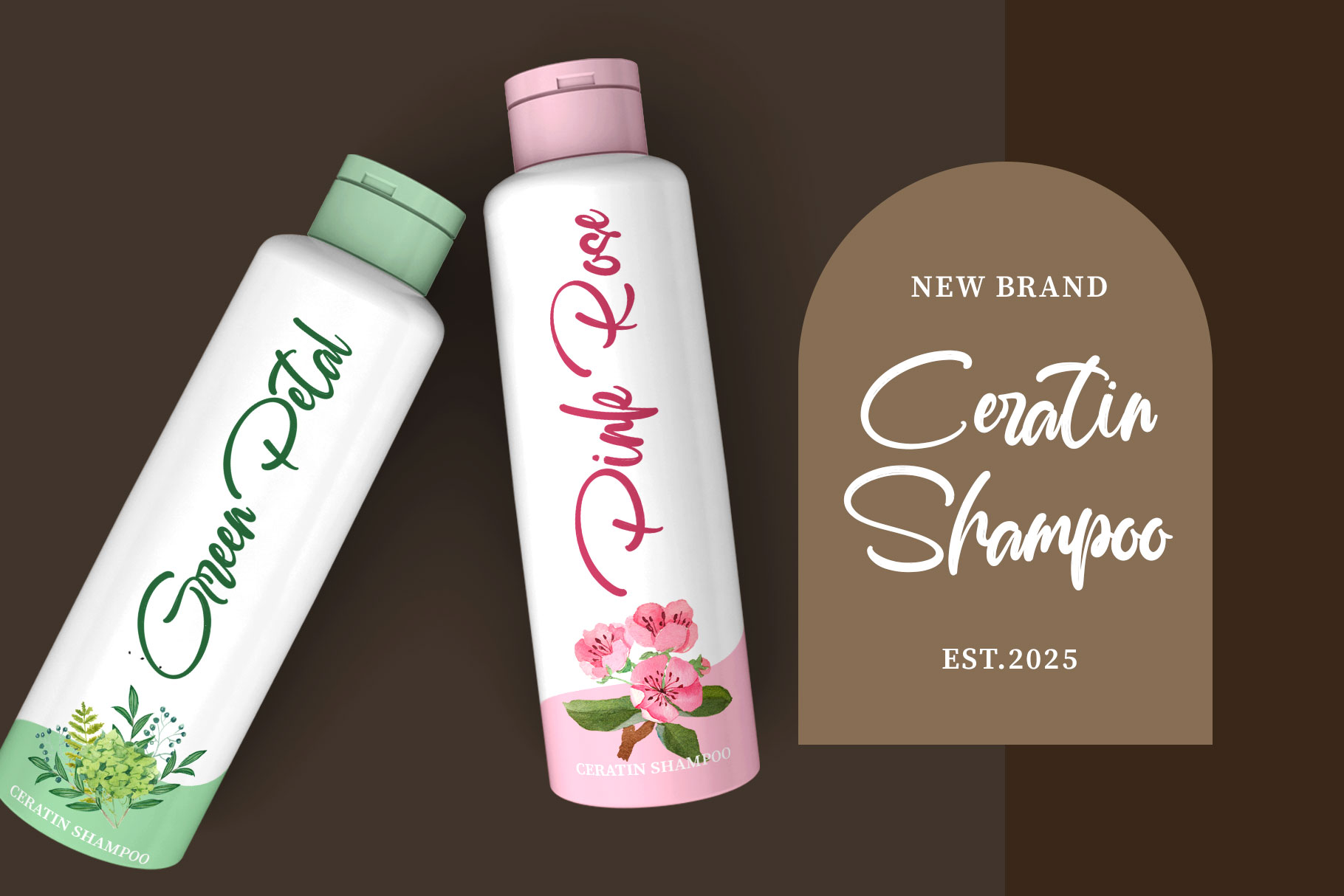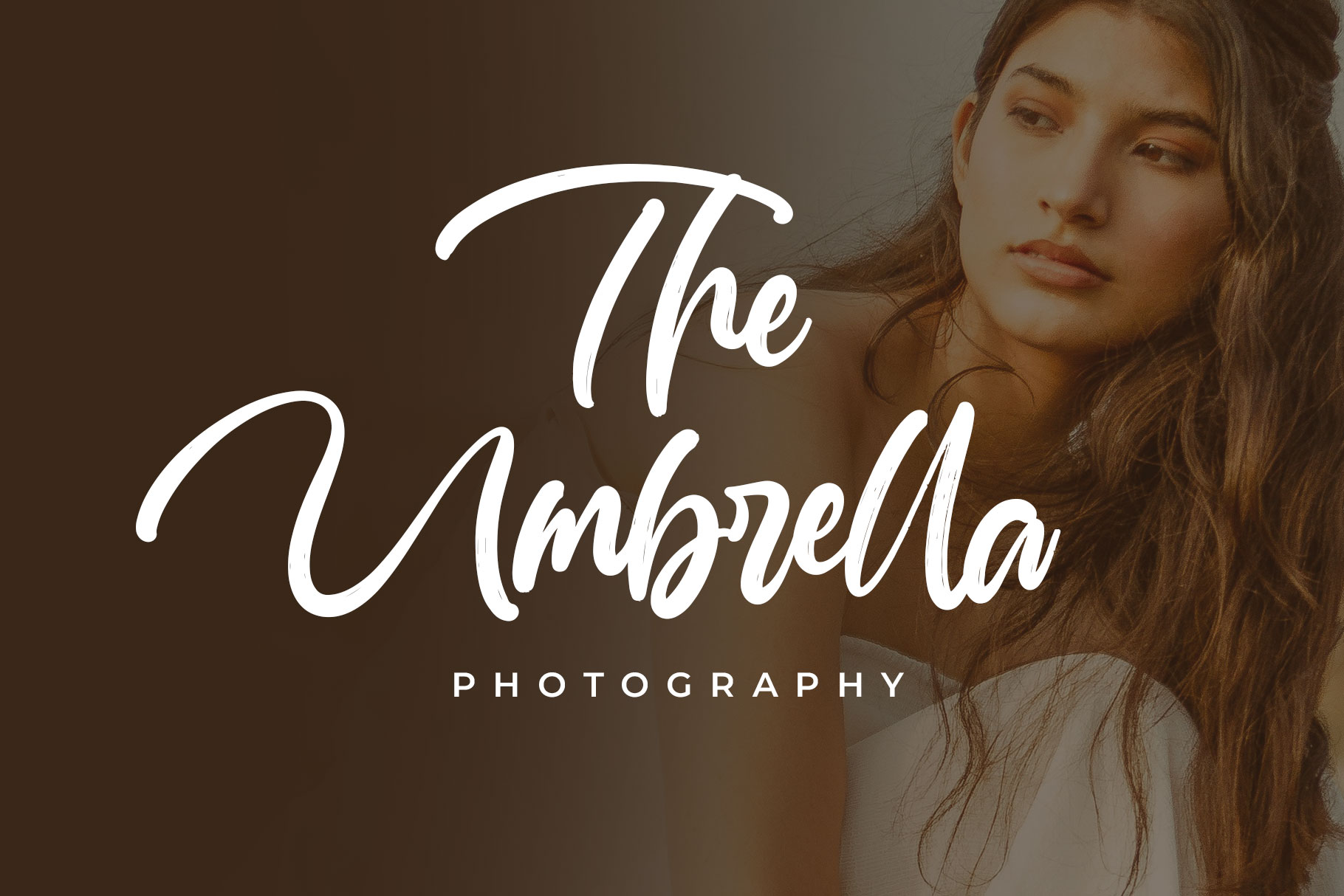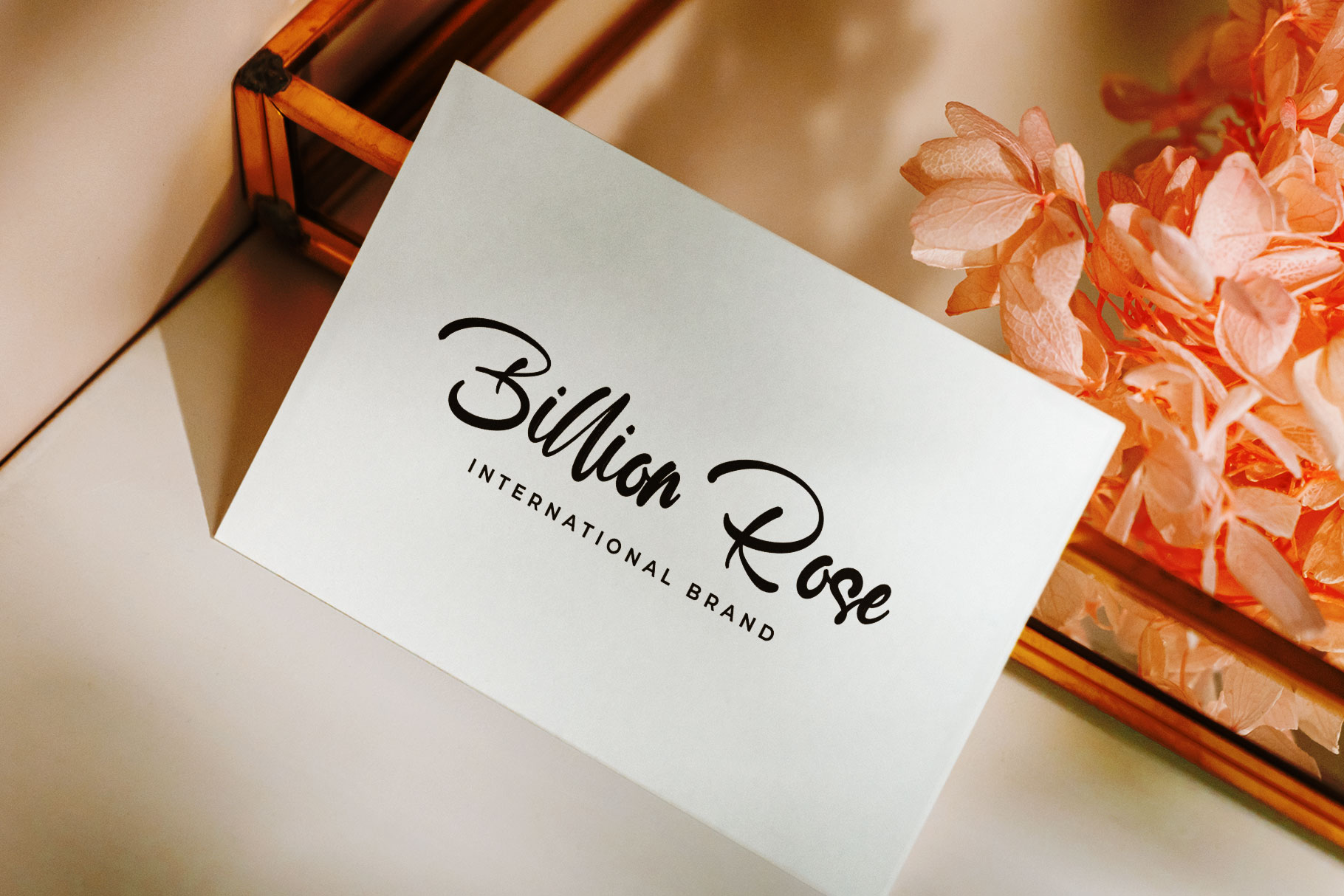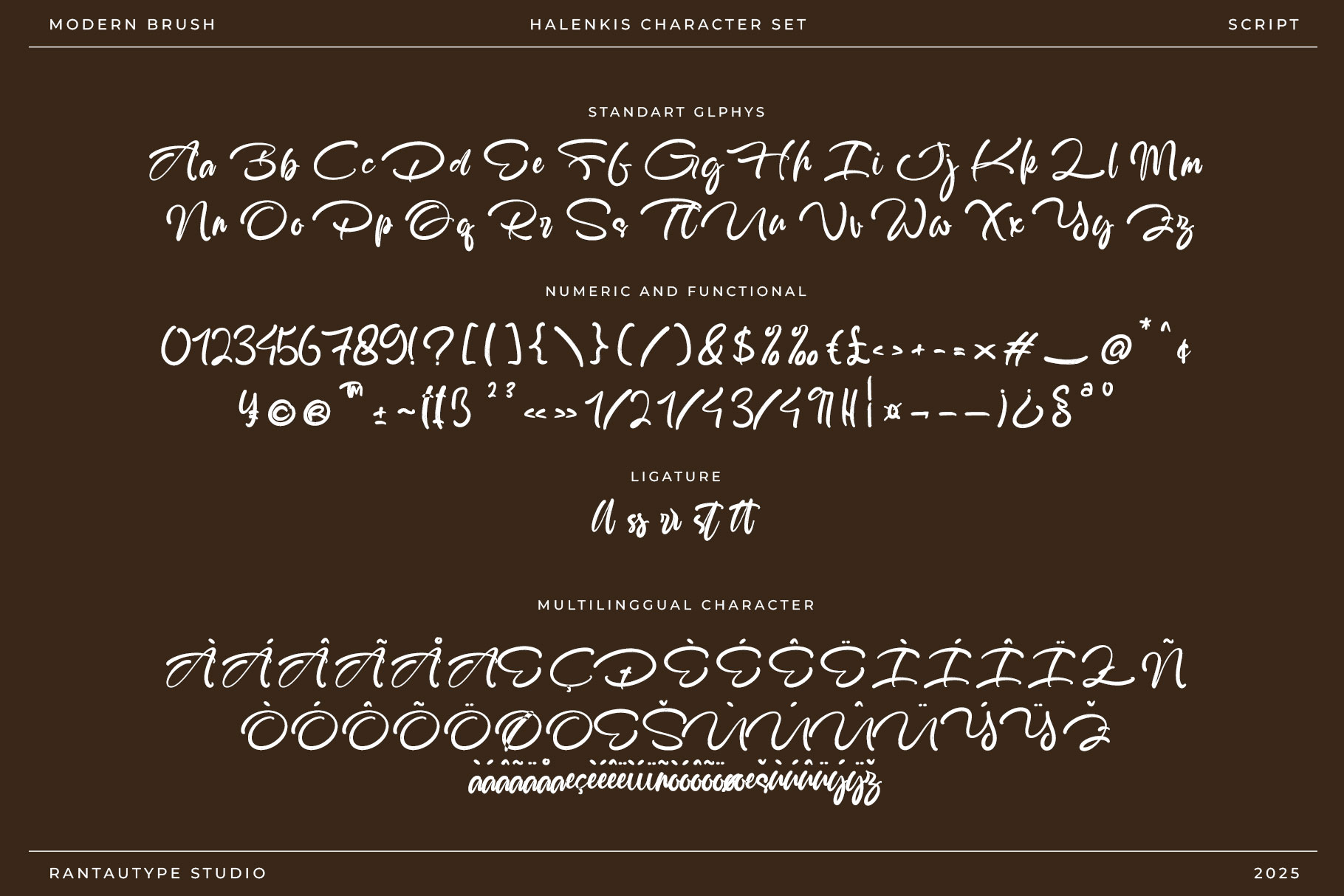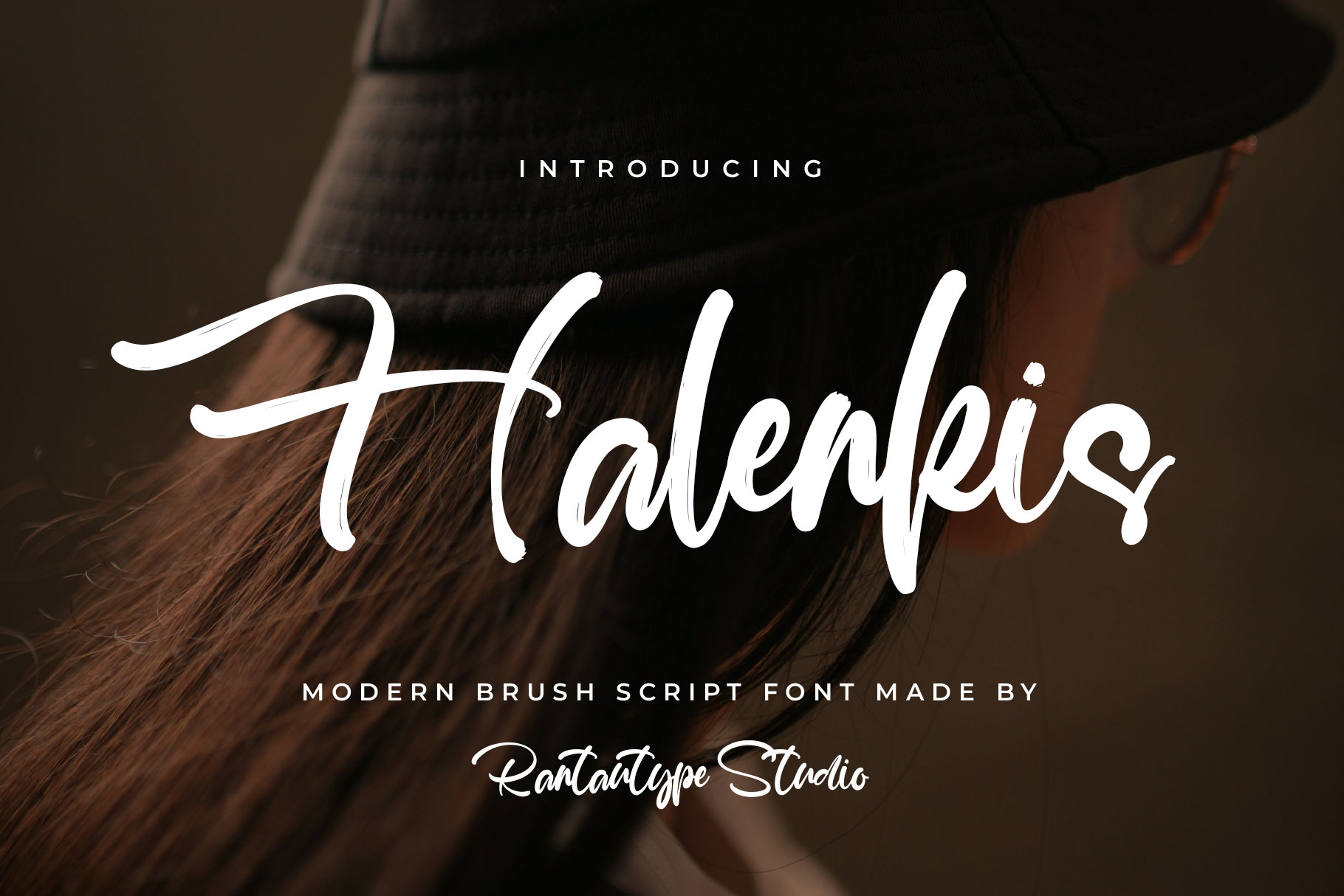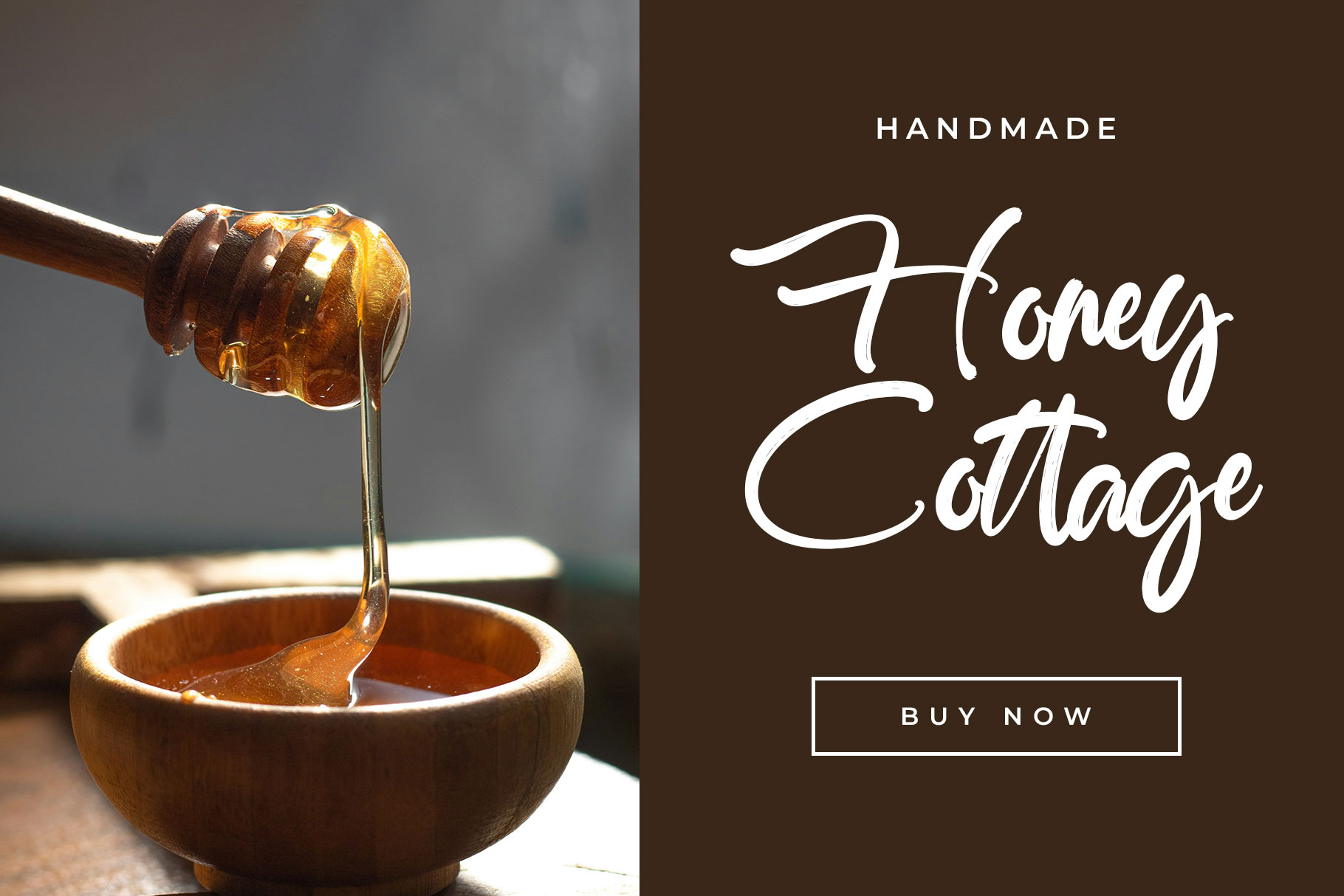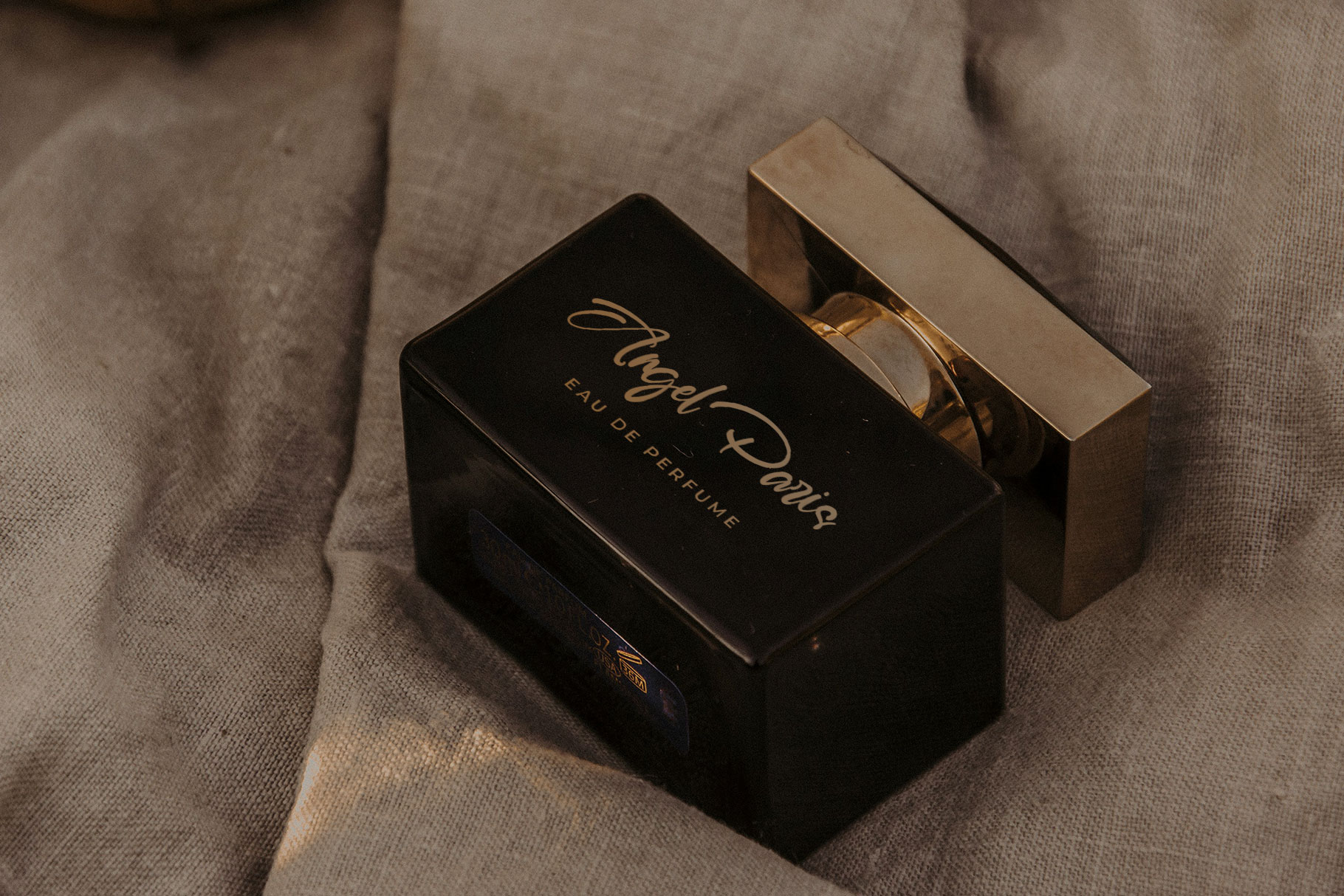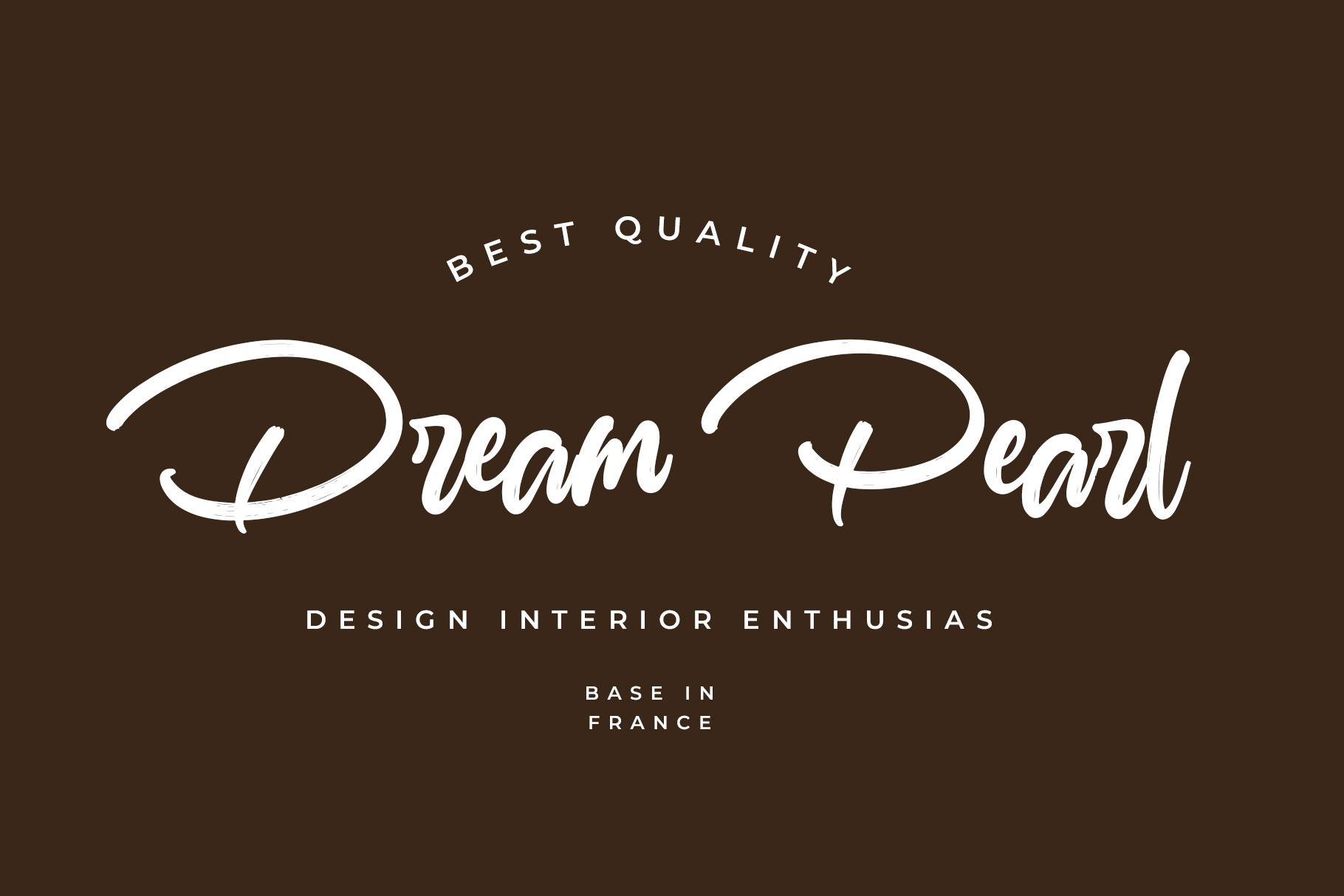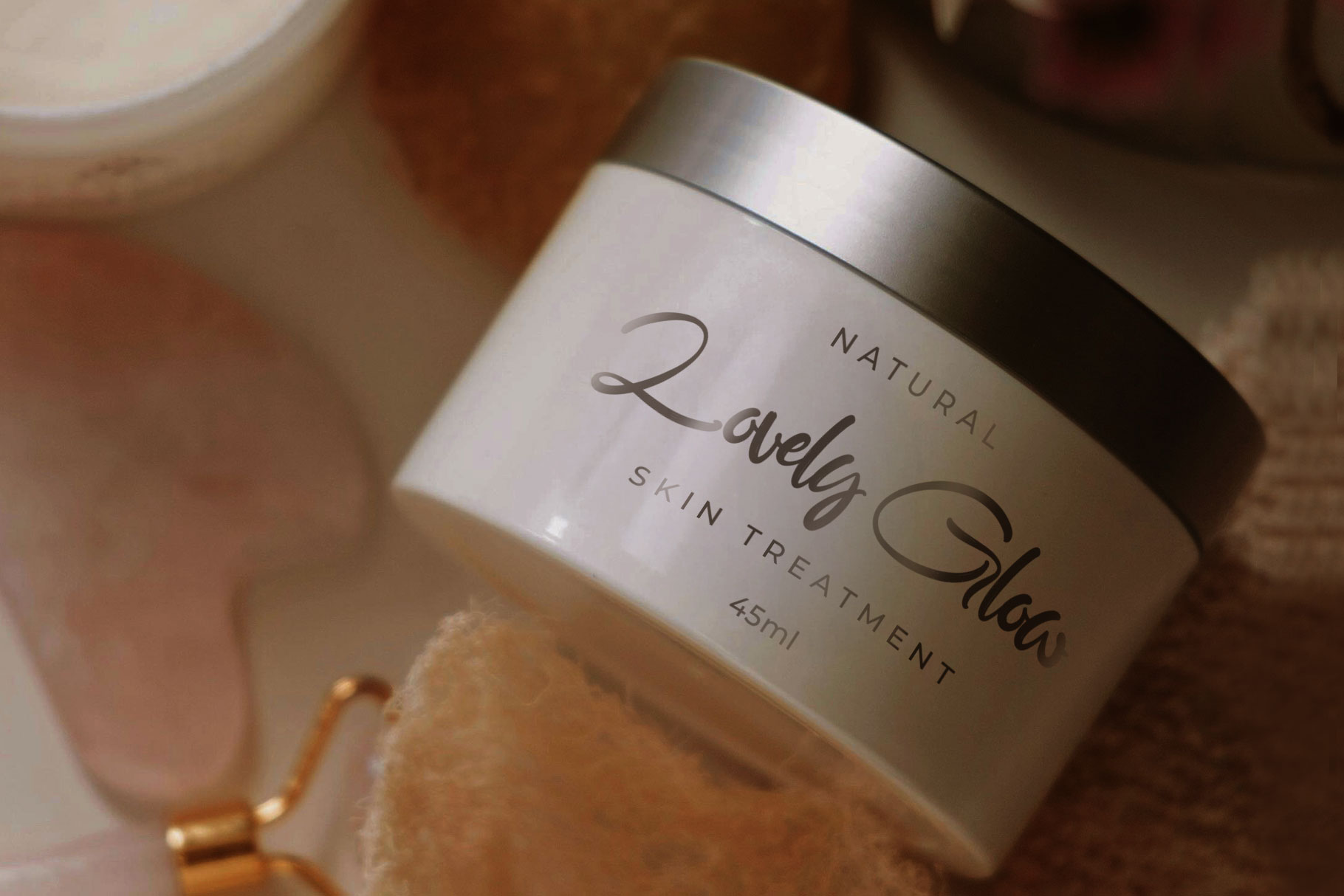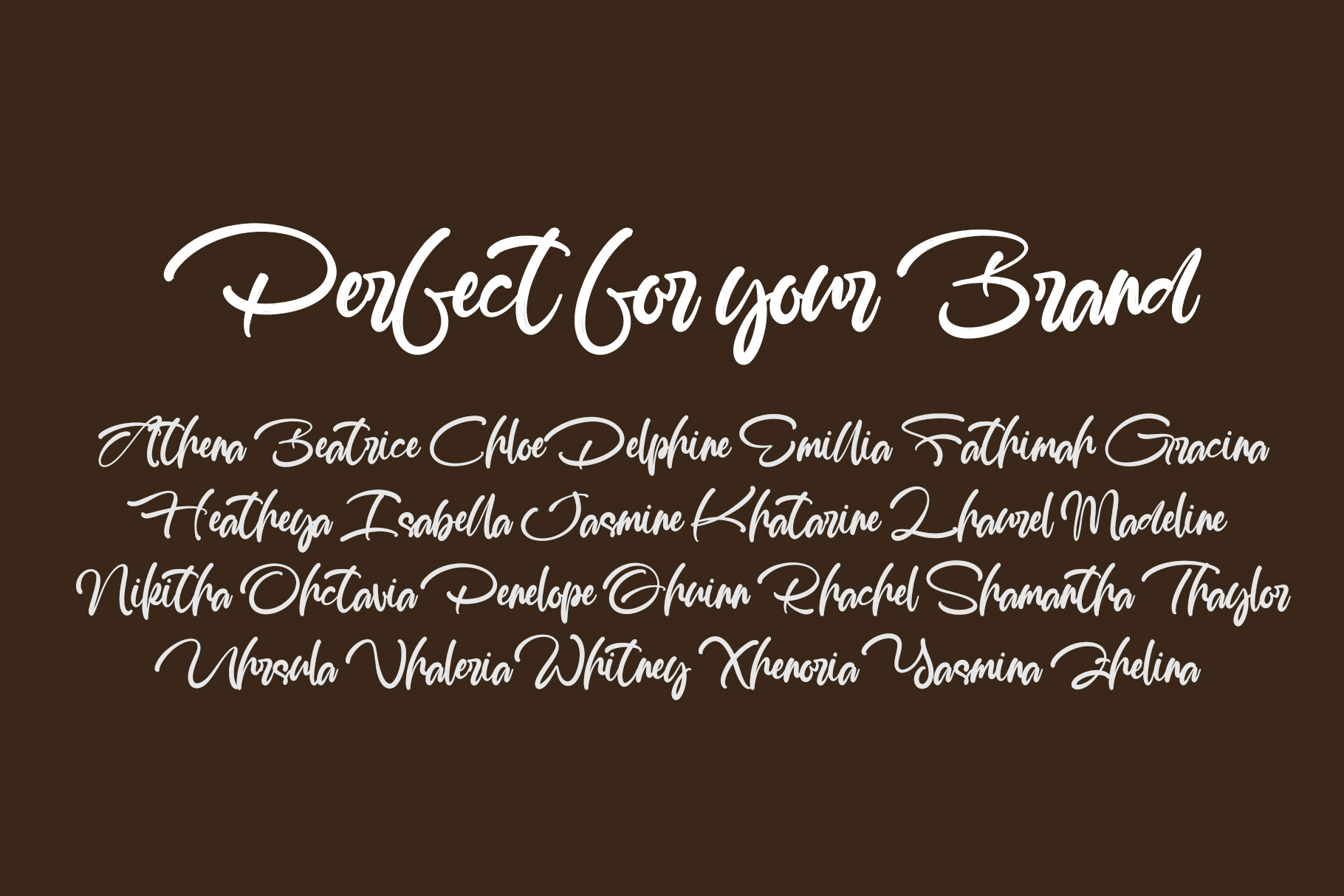
Halenkis Modern Brush Font
Halenkis is modern brush font made with love by rantautype studio. Halenkis come with dynamic typeface that combines the expressive strokes of hand-painted lettering with the clean precision of contemporary design.
Halenkis is a perfectly choice for any creative endeavor, creating, modern, lifestyle design such as logotype, title, cover, branding, invitations, wedding designs, display and magazine, social media posts, advertisements, printed quotes, product packaging, corporate brand, product designs, labels, photography, watermarks, special events and any other project with modern touch.